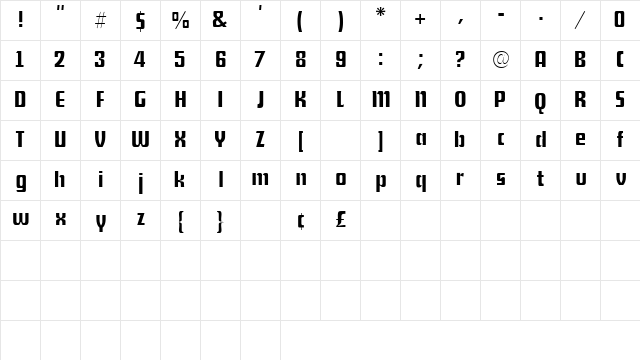
GumshoeSSK Regular
Design Context for GumshoeSSK Typeface
GumshoeSSK takes a measured approach to typography — its balanced proportions and neutral character make it a reliable workhorse for both digital and print work.